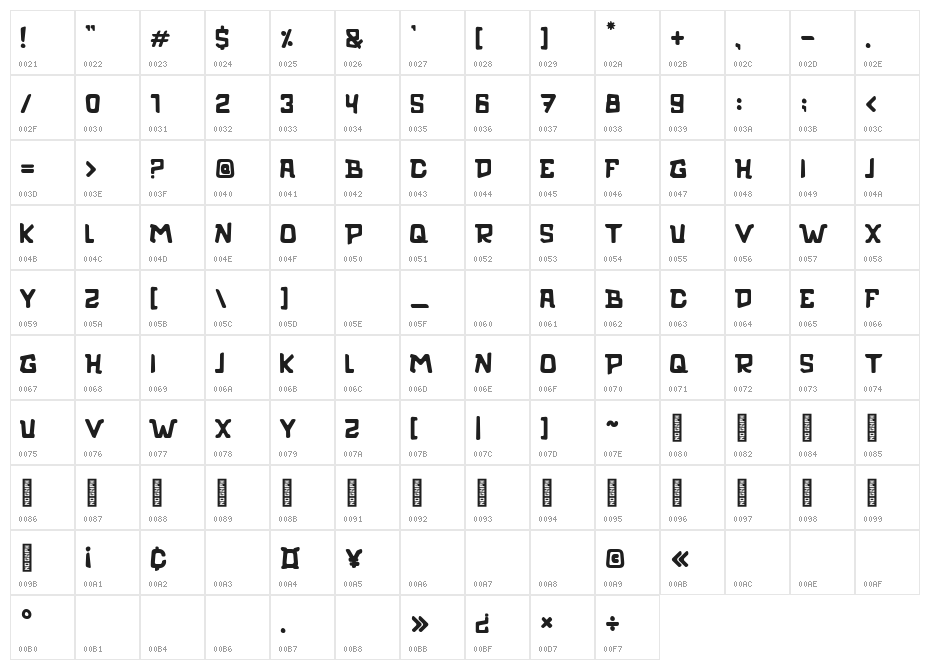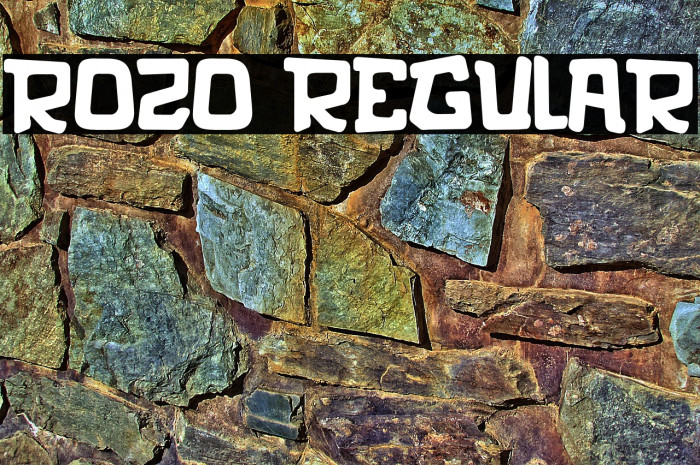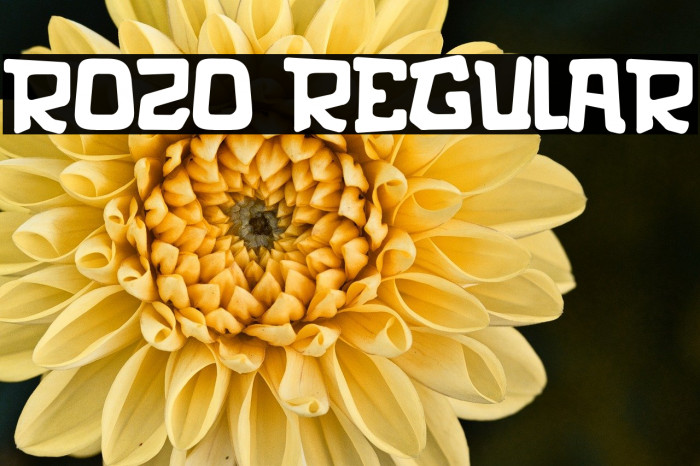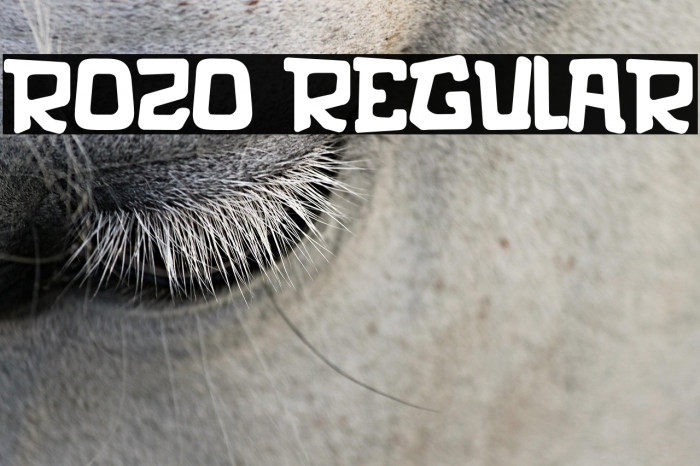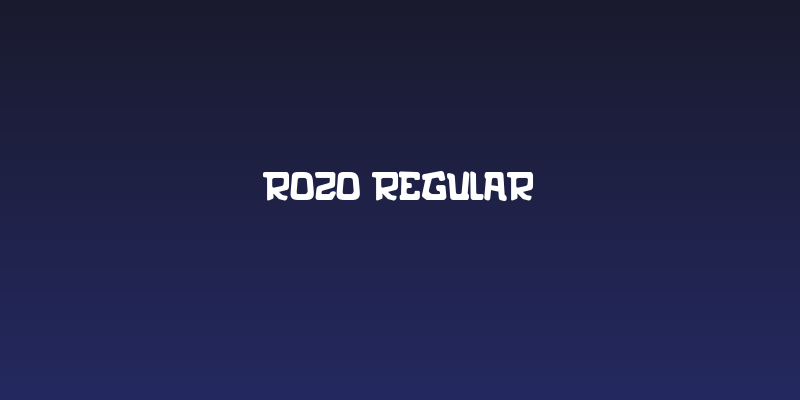
rozo Regular Font
rozo Regular Description
This font exhibits a bold and playful style with a unique, hand-drawn appearance. The characters are thick and slightly irregular, giving them a dynamic and energetic feel. The uppercase and lowercase letters maintain a consistent weight, while the numbers and special characters complement the overall design. The font's distinctiveness is enhanced by its slightly rounded edges and the subtle variations in stroke width, which add to its handcrafted charm. This typeface is well-suited for projects that require a fun and informal touch, making it ideal for creative and artistic applications.
| Overall Style | Playful, Handcrafted |
| Proposed Projects | Ideal for children's books, posters, branding for creative industries, and playful packaging designs. |